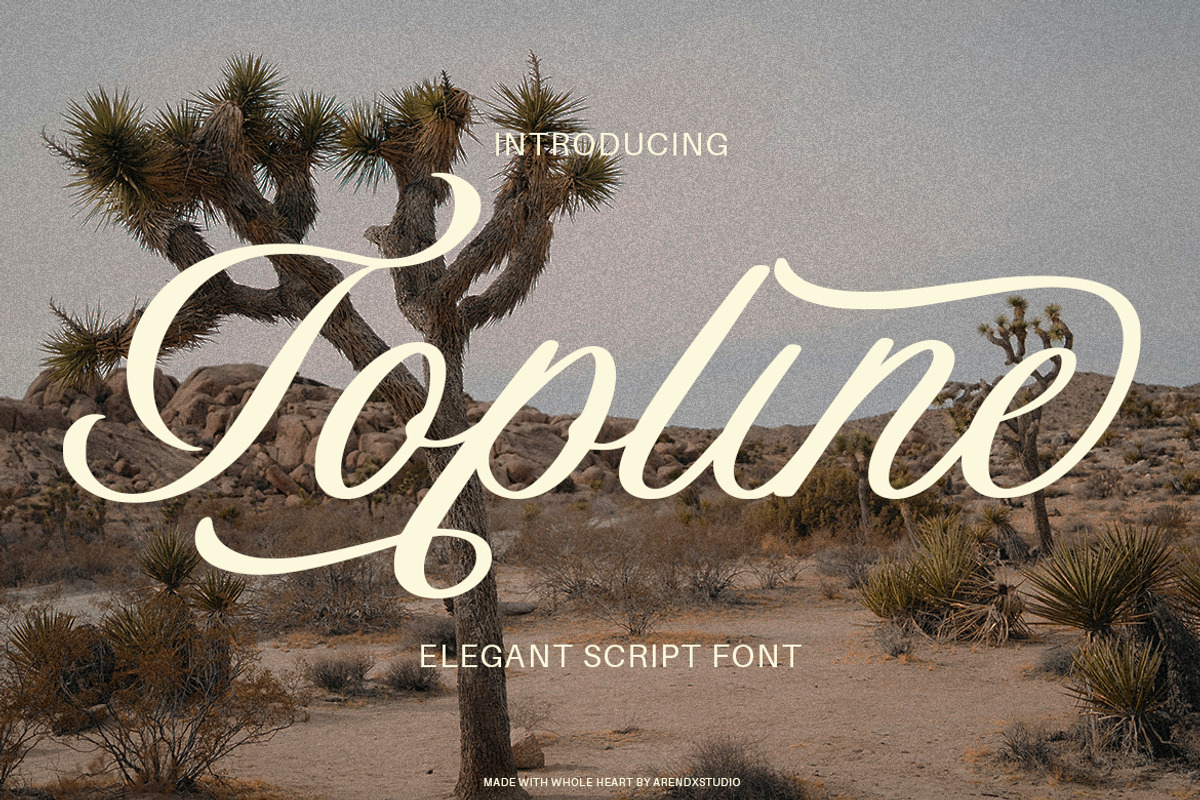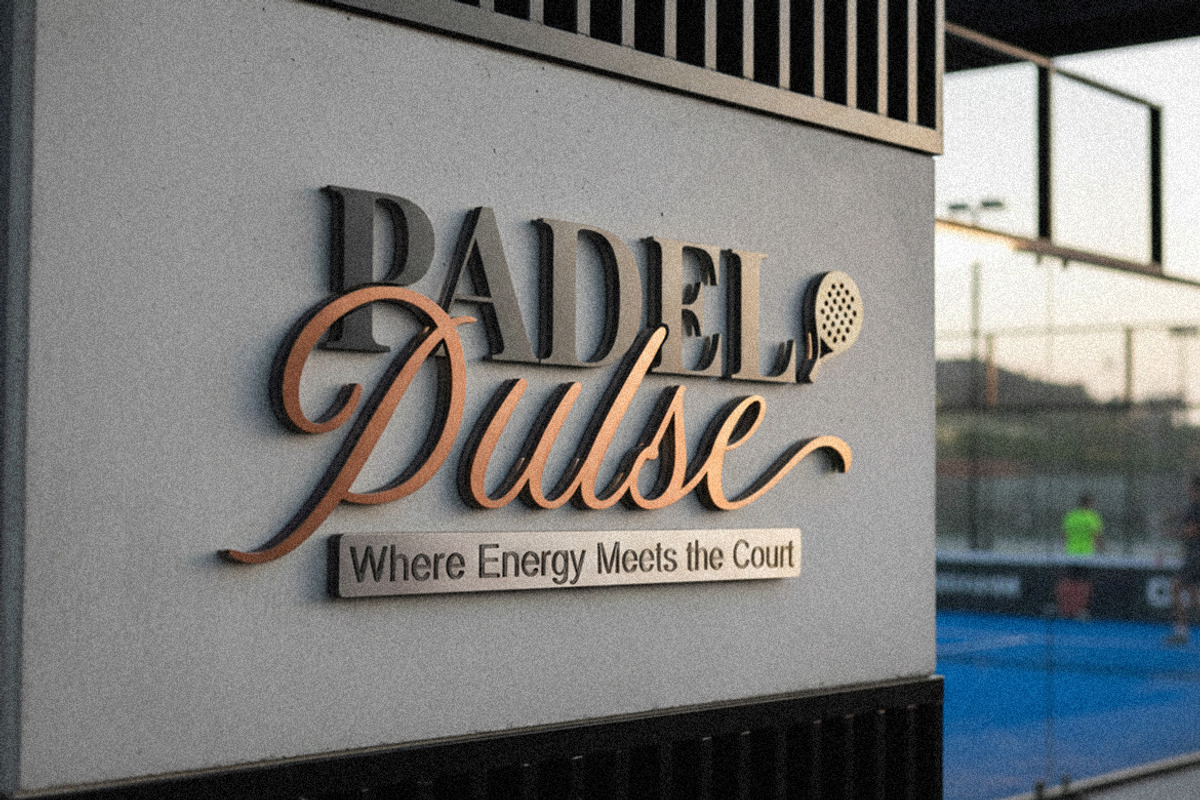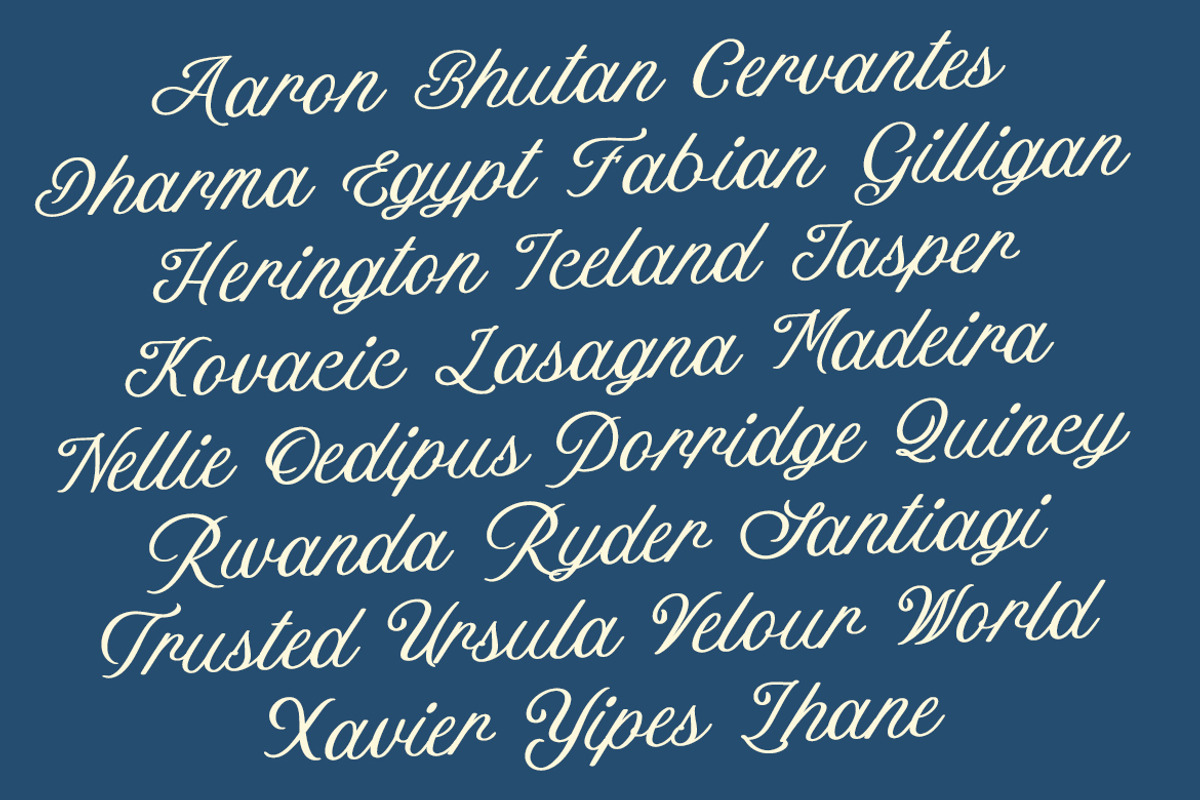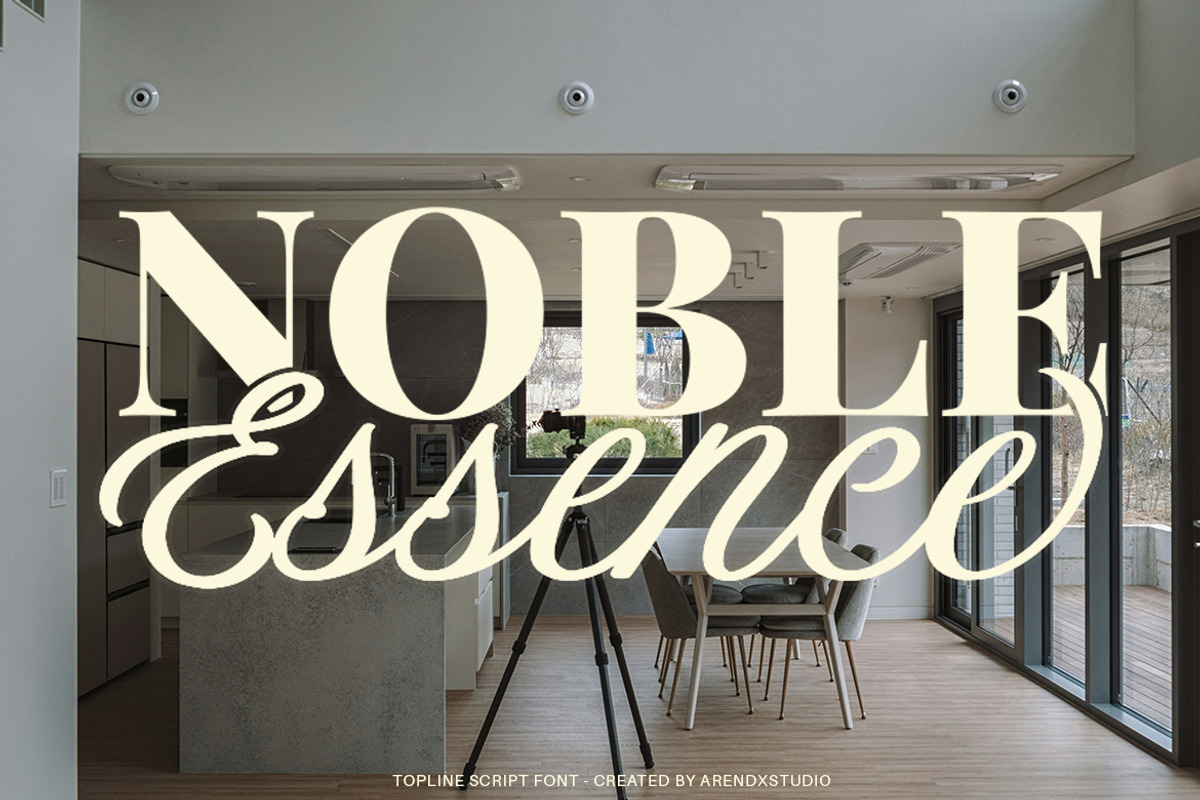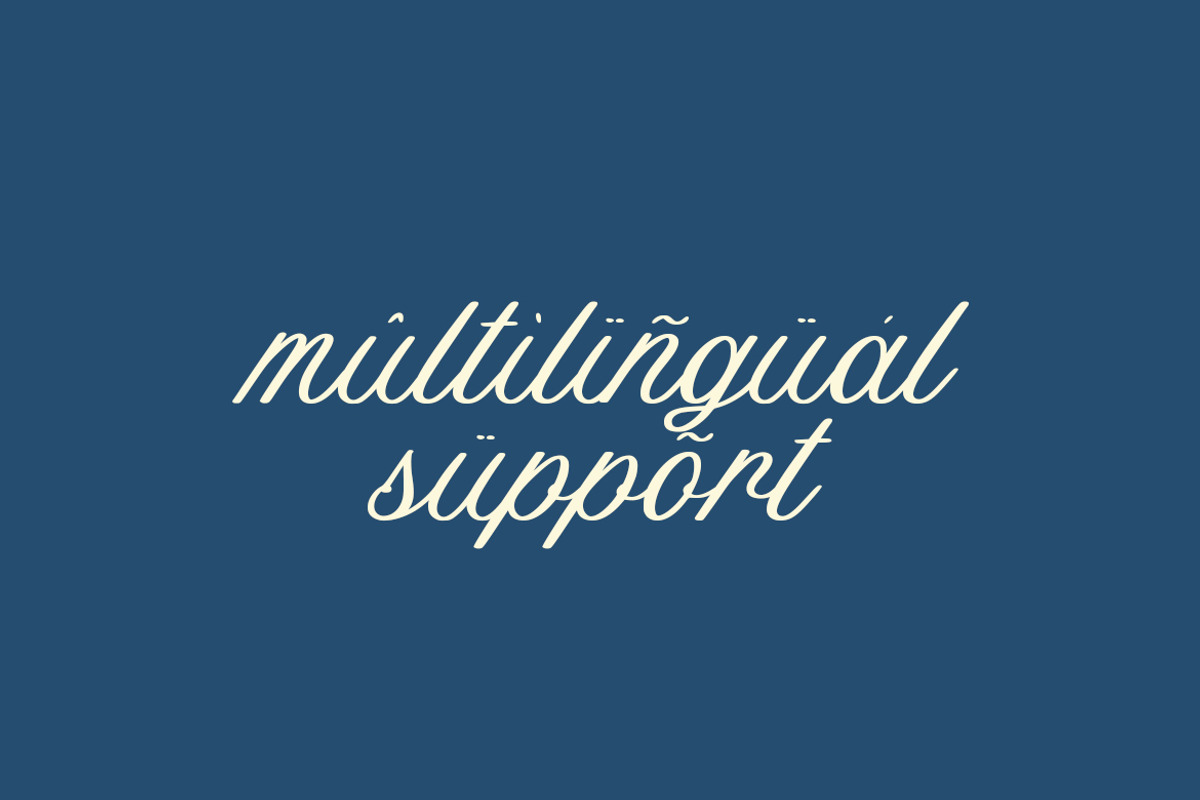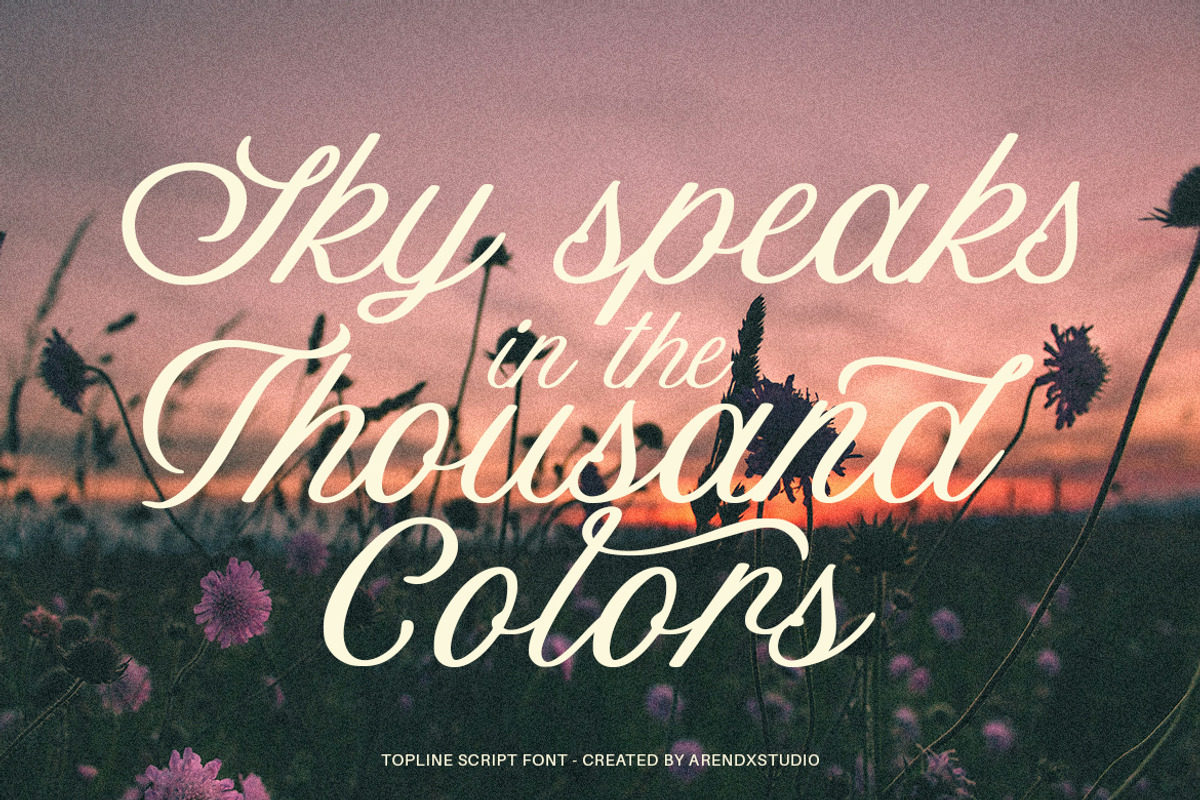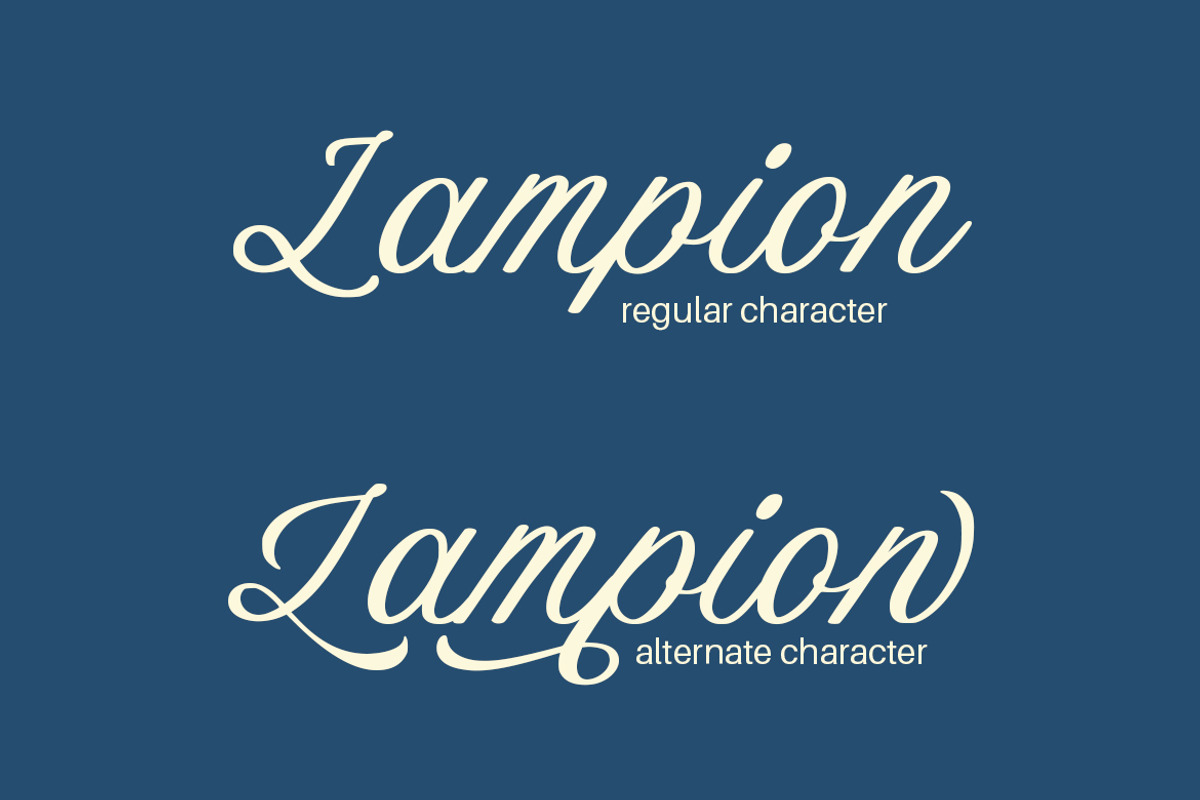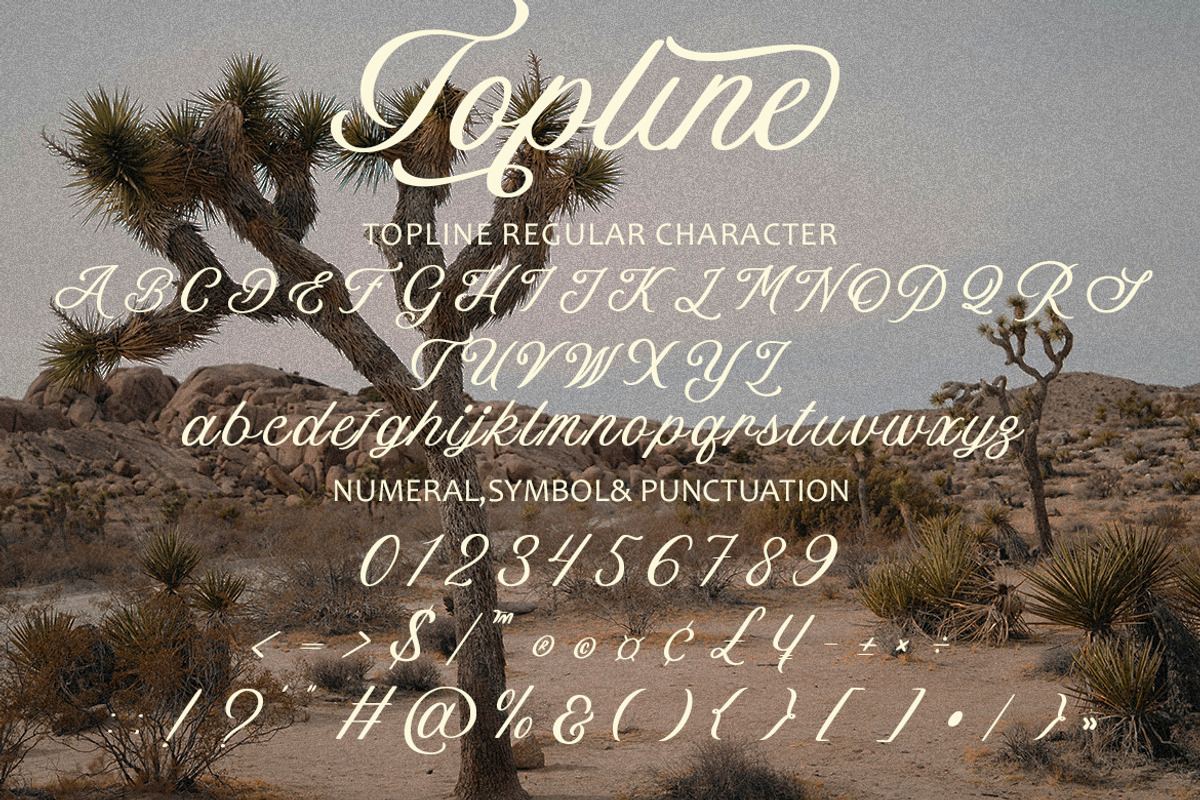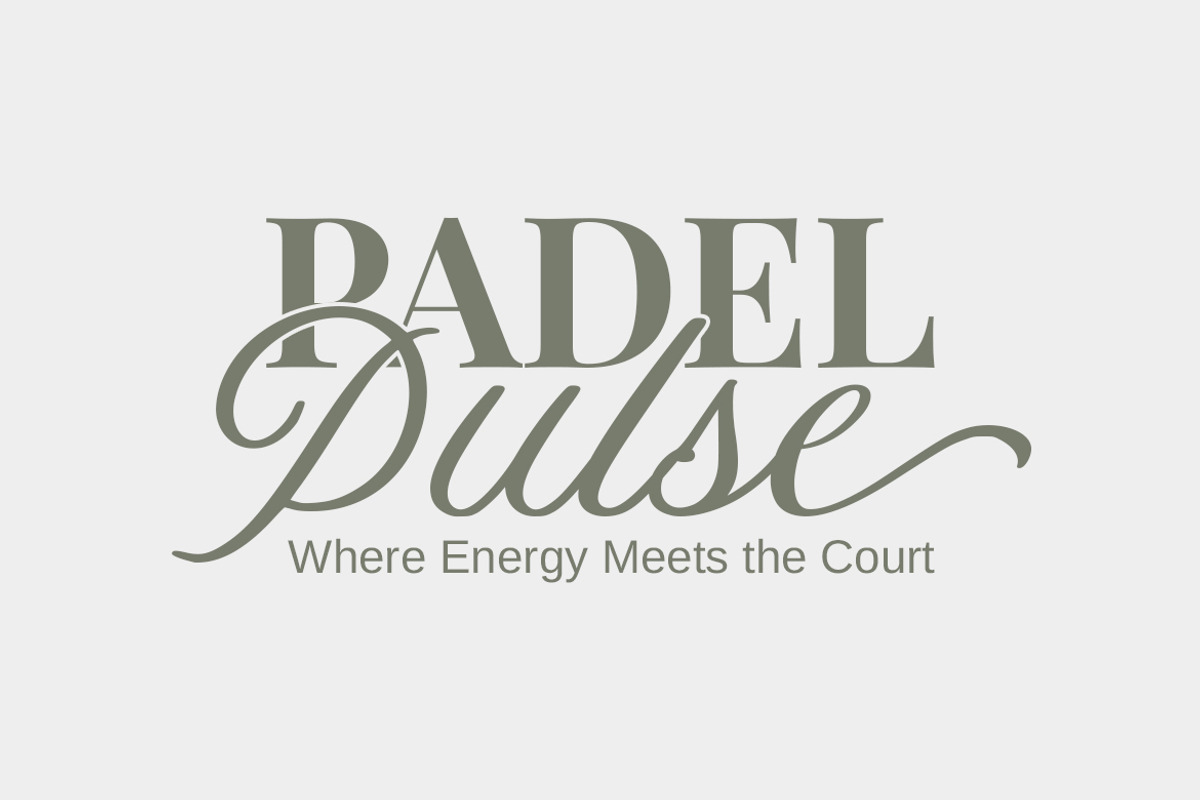
Topline – Elegant Script Typeface
Topline is an elegant script typeface that embodies timeless sophistication and expressive beauty. Designed to bring a refined and luxurious feel to your creative projects, Topline is perfect for branding, invitations, editorial layouts, packaging, or any design that requires a graceful and stylish touch. With its smooth flow and balanced rhythm, Topline adds a sense of confidence and refinement to your typography. Whether for digital or print applications, this typeface delivers elegance, charm, and a professional finish that elevates every visual composition.
Features : Uppercase and lowercase characters